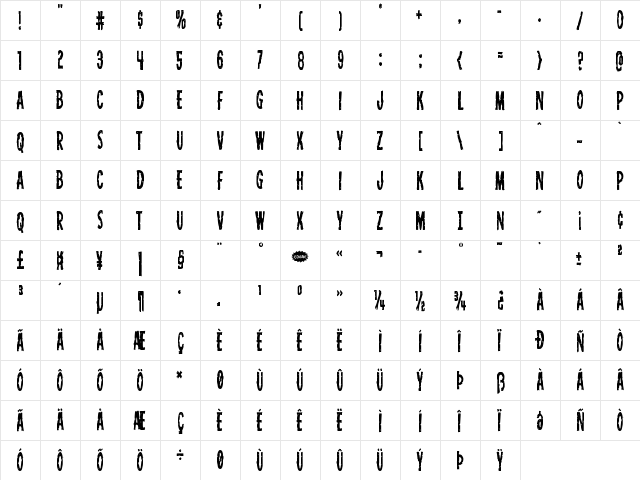
Carnival Corpse Condensed Condensed
Design Context for Carnival Corpse Condensed Typeface
Carnival Corpse Condensed is a composed and adaptable typeface that performs quietly and consistently across a wide range of design contexts. The condensed width makes it efficient for tight spaces without sacrificing legibility.
Pro Tip: Use Carnival Corpse Condensed in both headline and body roles to test its range before committing to a single application.